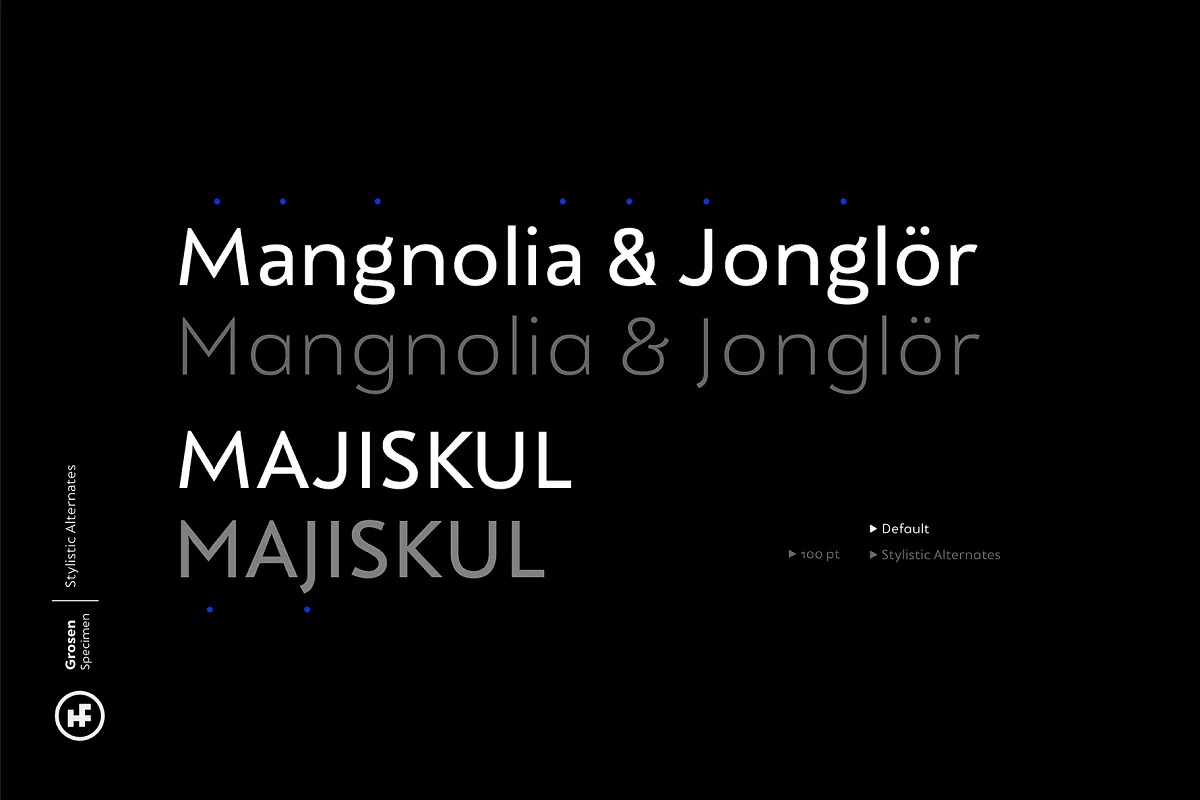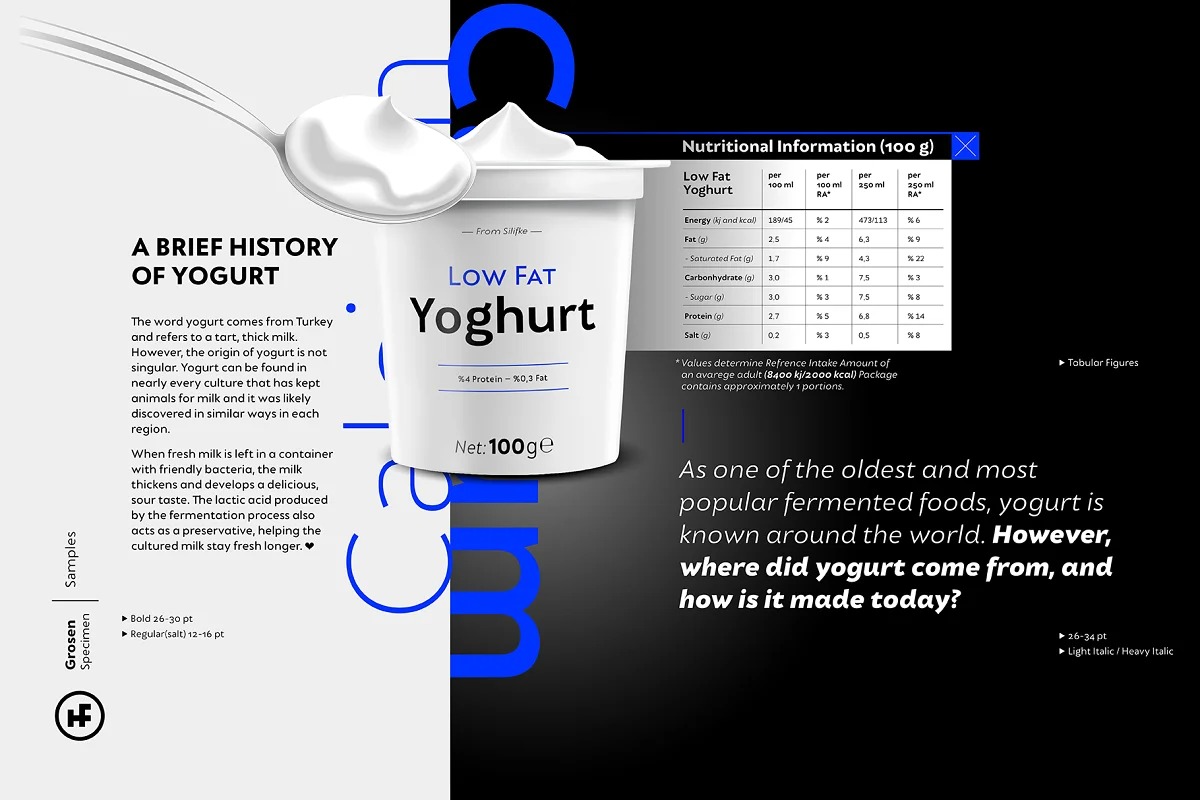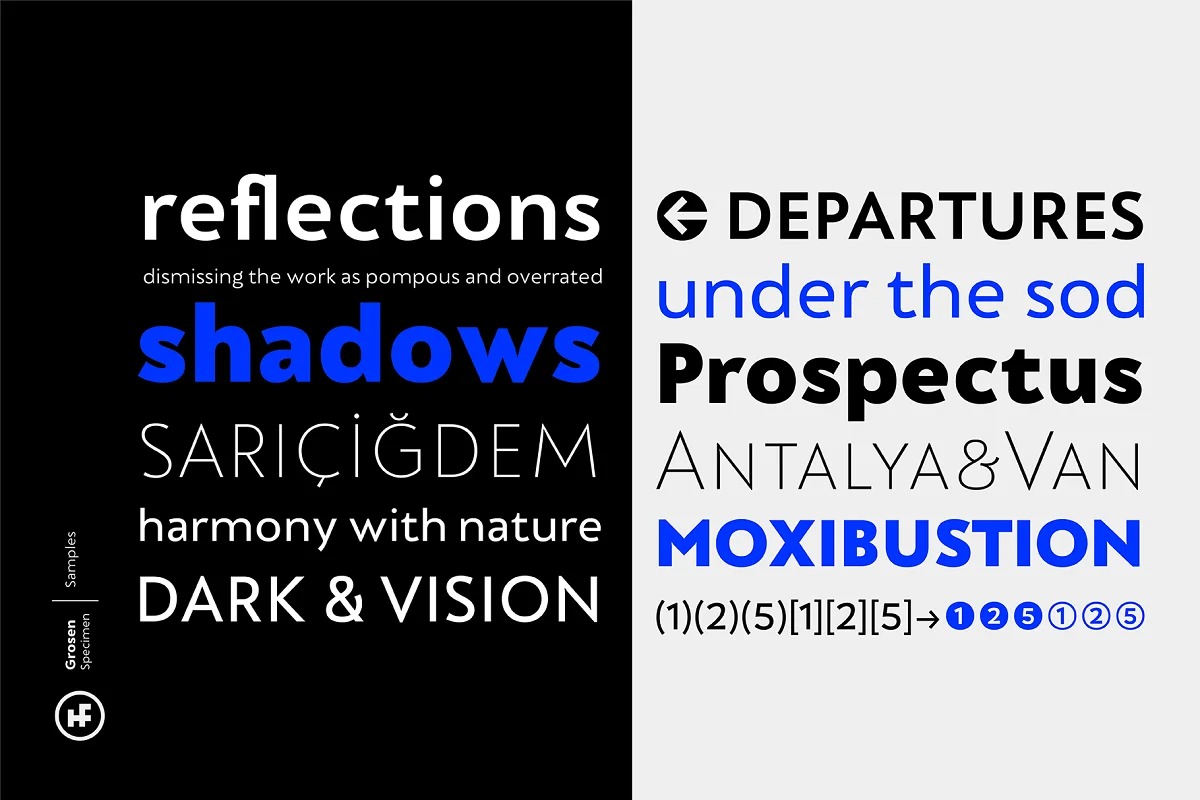
Grosen Font Family
Grosen Sans Serif Font
It’s a strong fontfamily and sophisticated sans serif. Inspired by the animal, it’s sturdy uncompromising style is felt through the controlled letterforms and modern touches. Although it is designed upon the basic geometric structure, it shows own style with expansion that makes a reference to serif at start and finish of round letters. Grosen Typeface Family has fourteen styles with seven weights and theirs real italics. These have advanced OpenType features; like small capitals, case sensitive signs and math symbols, alternative characters (a, g, M, J, &), automated fractions, oldstyle figures, tabular linings, proportional numbers…